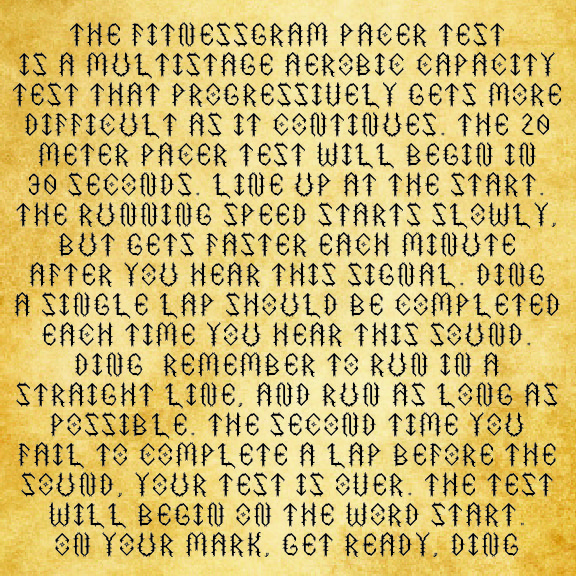
• RuneBlade is a font made for storytellers and adventurers to weave their tales in its sharp, runic scrawl. Inspired by Dungeons&Dragons, it's ready to find its way into fantasy adventurers and historic tales of.... well, whatever the campaign turns out to be.